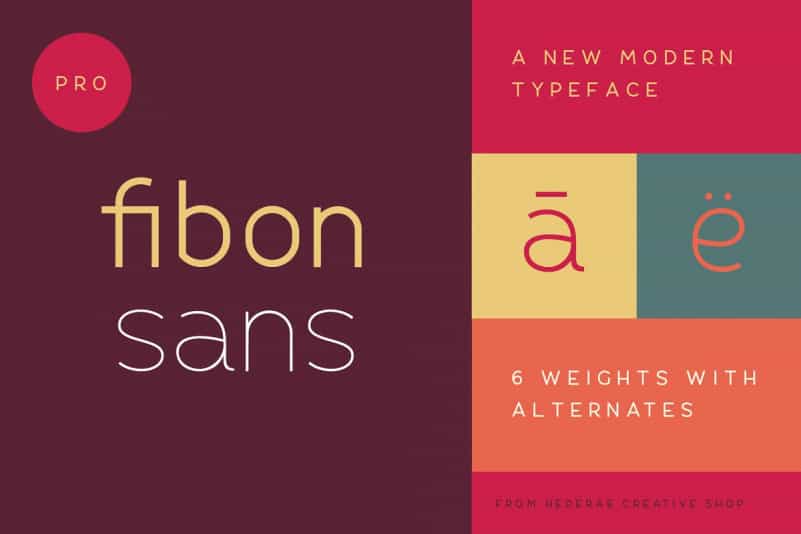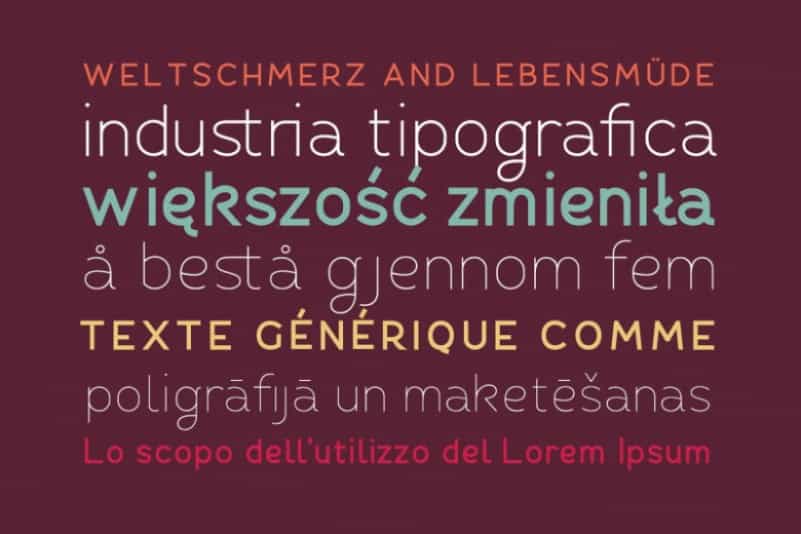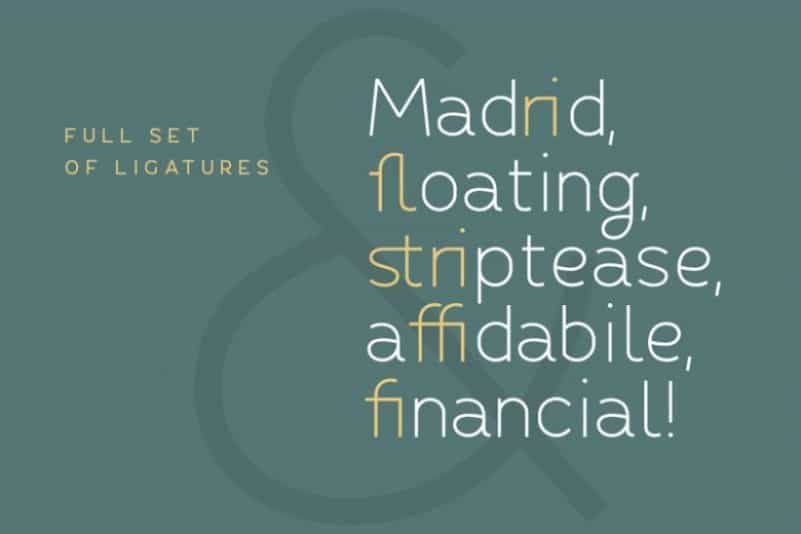
Fibon Sans is an simple sans serif typeface that can effortlessly blend into a range of projects. Integrate it into your designs. See them come to life on screen!